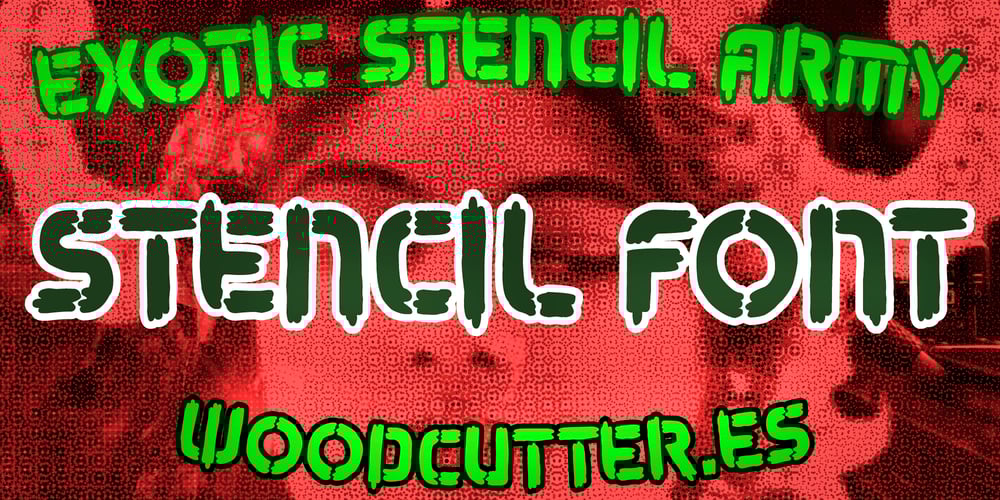
Exotic Stencil Army Font Family was designed by Jordi Manero and published by Woodcutter. Exotic Stencil Army contains 1 styles and family package options. “Exotic Stencil Army” is an uppercase typeface that reimagines the classic stencil style with a unique and exotic touch. Its letters feature imperfect, rounded edges that soften its rigid appearance, achieving a balance between sturdiness and fluidity. This font combines military precision with a more relaxed and versatile design, making it ideal for creative projects that need to stand out boldly while maintaining an original flair. Perfect for posters, signage, graphic design, and branding, “Exotic Stencil Army” delivers personality and a laid-back touch that makes it shine in any visual composition.